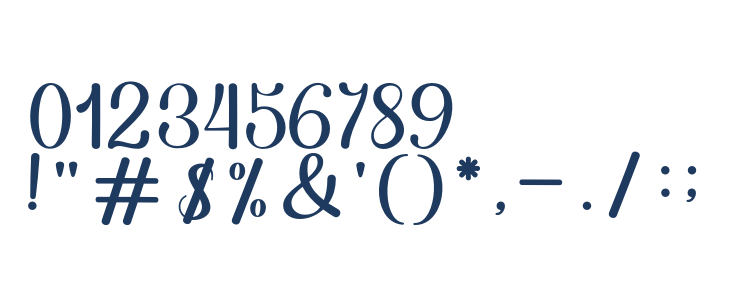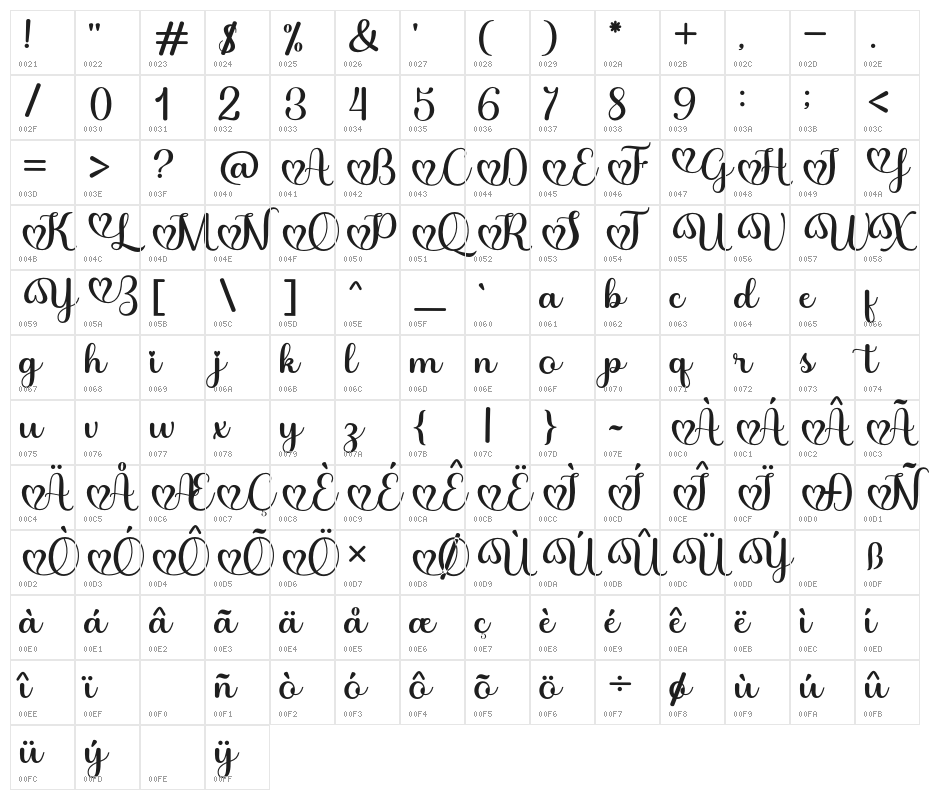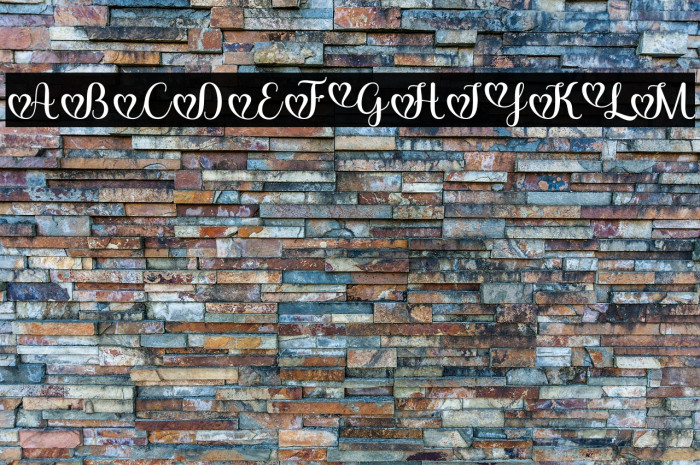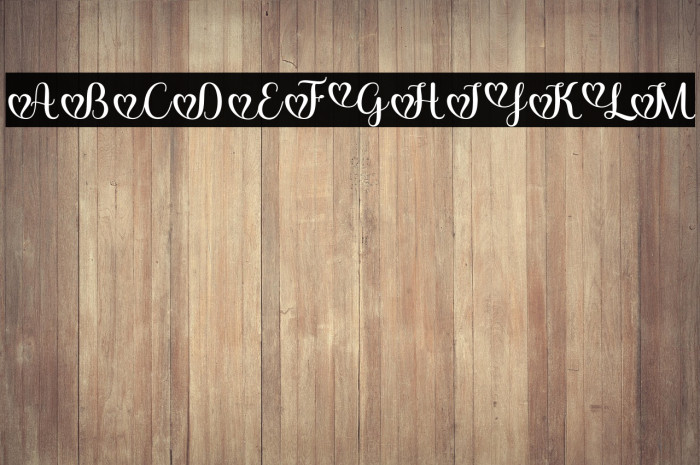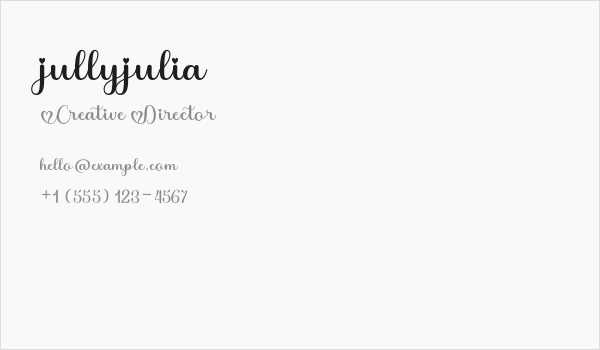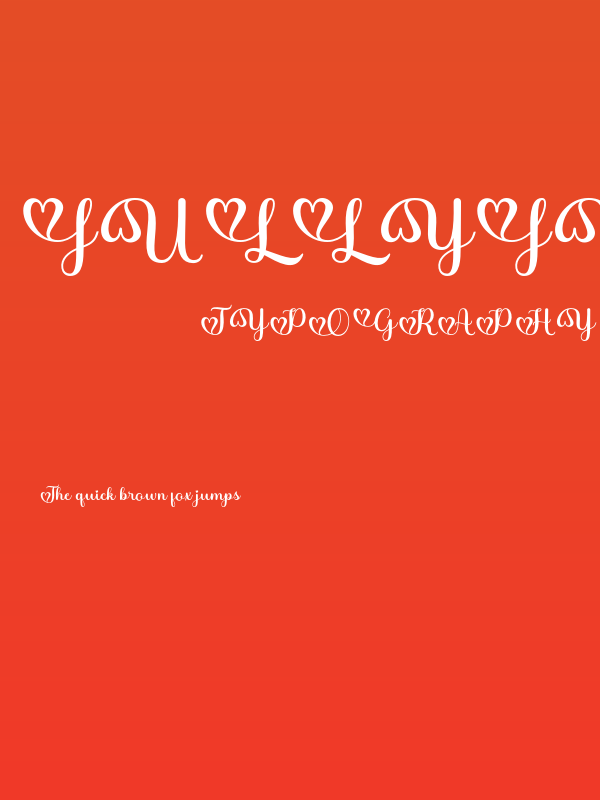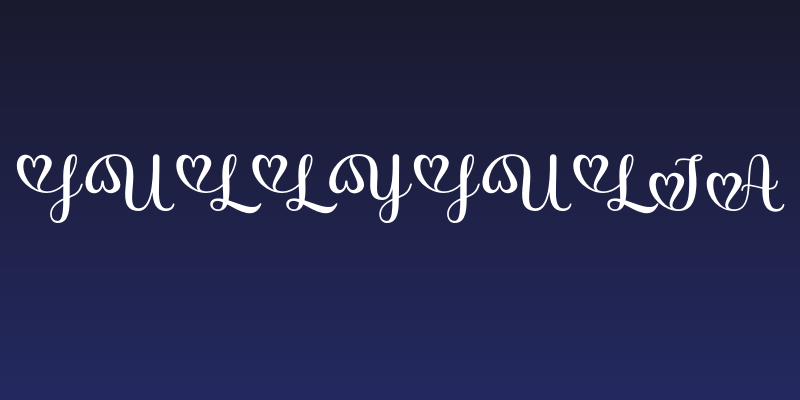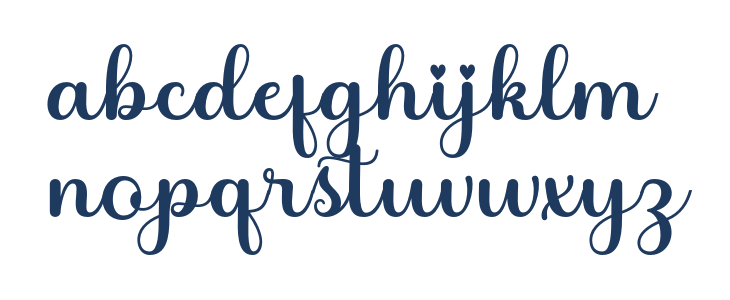
jullyjulia Font
jullyjulia Description
This font features a playful and romantic design, incorporating heart motifs into the uppercase letters, which adds a whimsical touch. The lowercase letters are smooth and flowing, resembling a cursive script that maintains readability. The numerals are bold and clear, making them suitable for various applications. Special characters are included, maintaining the same playful style. The overall design is cohesive, with a consistent stroke width that gives it a balanced appearance.
| Overall Style | Romantic, Playful |
| Proposed Projects | Ideal for wedding invitations, greeting cards, love-themed branding, and playful graphic design projects. |